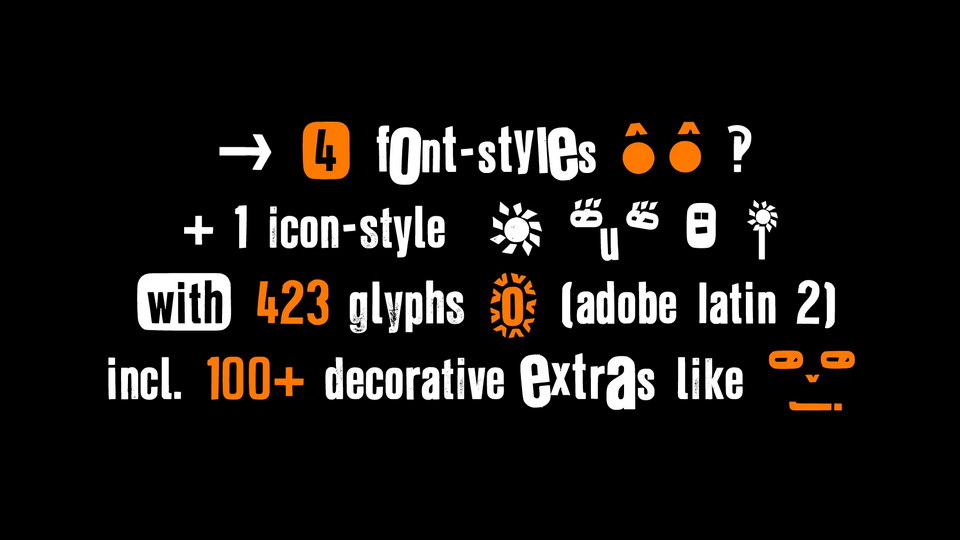
Klein Rough Gemein Fonts
Klein Rough & Gemein(e) is a display font family based on original old german rubber stamps and is inspired in the past and present.
The full version of Klein Rough & Gemein(e) includes 4 font styles (Rough, Rougher, Roughest, Rough Mix) + 1 icon-style with 432 glyphs (Adobe Latin 2) incl. A free version has reduced glyph-set.
For use in logos, magazines, posters, advertisement plus as webfont for decorative headlines. The font works best for display size.